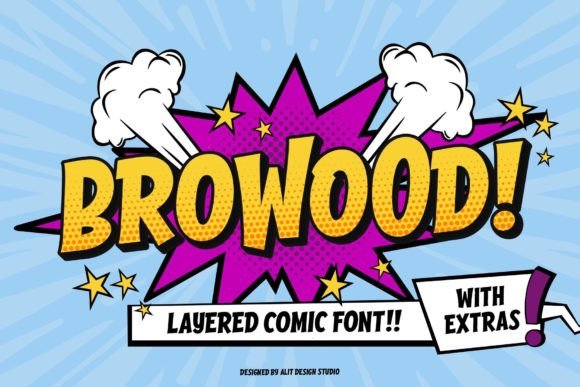
Introducing Browood Font, the ultimate choice for those seeking the best font for comic dialogue. Created by the talented Alit Design, this font family is perfect for adding a touch of fun, playfulness, and boldness to your design projects.
With its unique style, Browood Font is sure to inspire your creativity and make your designs stand out from the crowd. Whether you're working on a comic book, poster, logo, or any other creative endeavor, Browood Font will inject a dose of charm and character into your work.
What sets Browood Font apart is its PUA encoding, which allows for easy access to all the glyphs and swashes. Say goodbye to limitations and explore the endless possibilities this font offers. From funky letterforms to captivating flourishes, you have the power to truly customize your designs and make them truly one-of-a-kind.
Imagine the impact Browood Font will have on your comic dialogue. Each word will burst with energy, captivating readers and immersing them in your story. The playful curves and bold strokes of this font will bring your characters to life, making their conversations truly unforgettable.
But Browood Font isn't just for comic dialogue. Its versatility extends beyond the pages of a comic book. Use it to create eye-catching headlines, attention-grabbing posters, or quirky branding materials. The possibilities are endless, limited only by your imagination.
Embrace the joyous and vibrant world of Browood Font. Let it guide you through a journey of creative expression, where every stroke and curve tells a story. Whether you're a professional designer or a passionate hobbyist, Browood Font will be your faithful companion, adding that extra touch of magic to your creations.